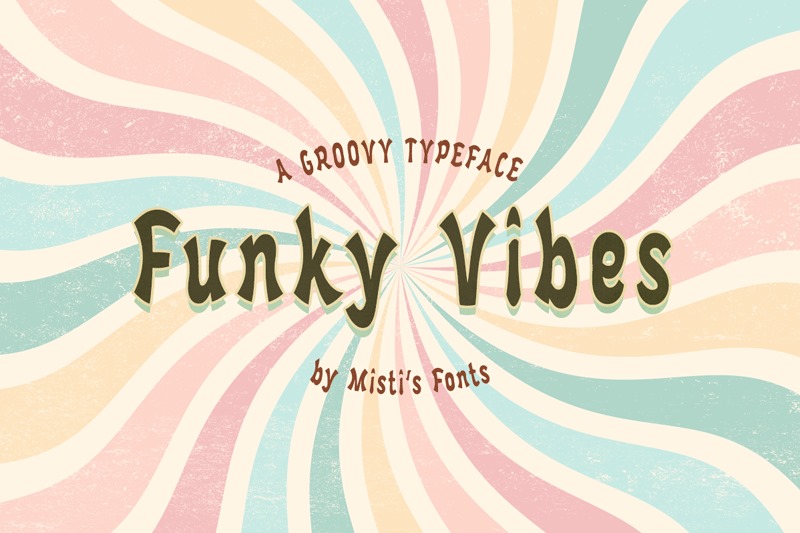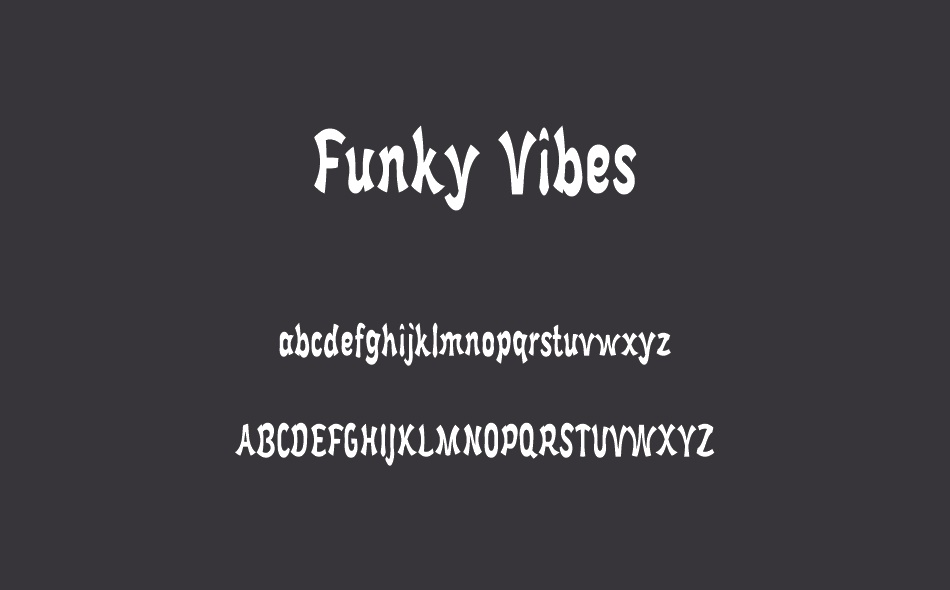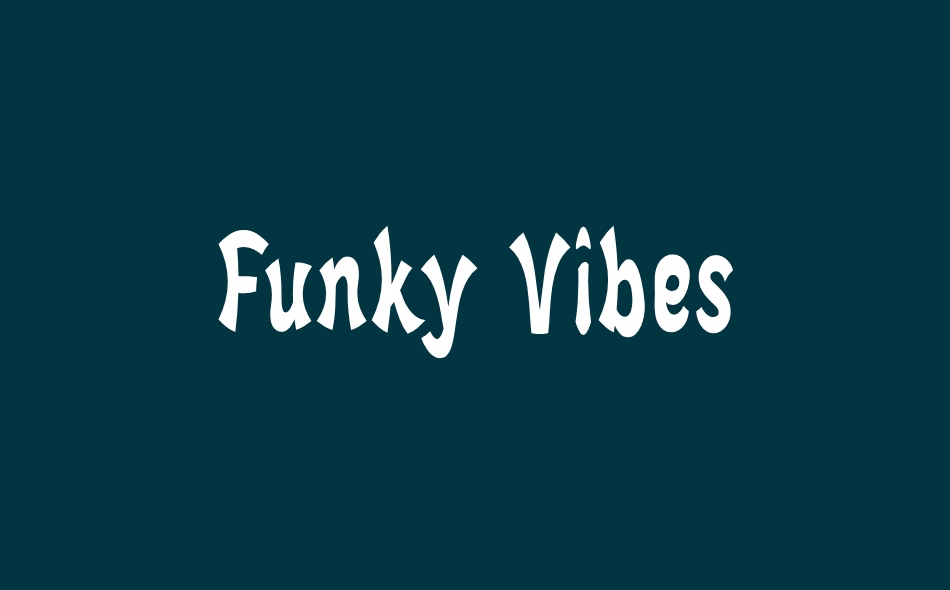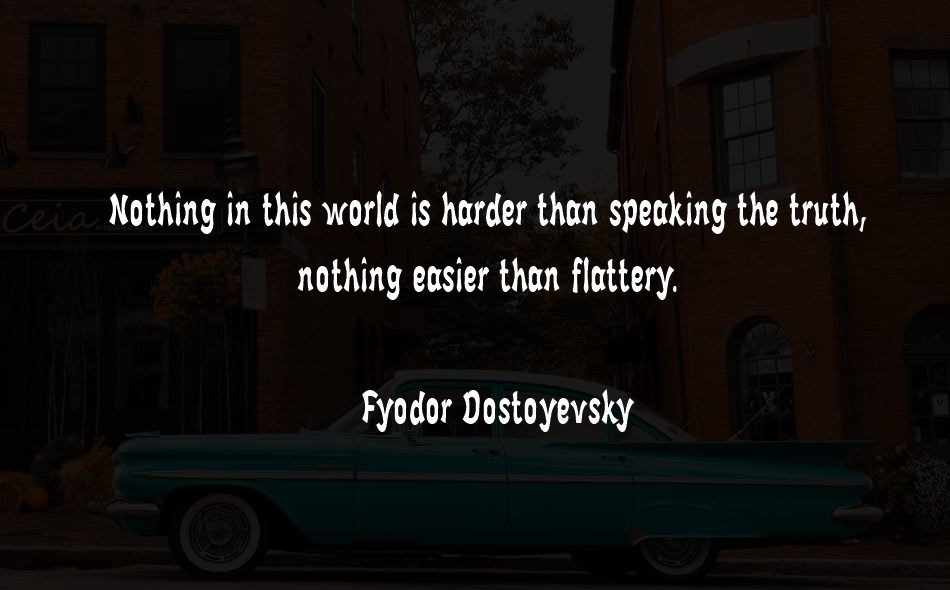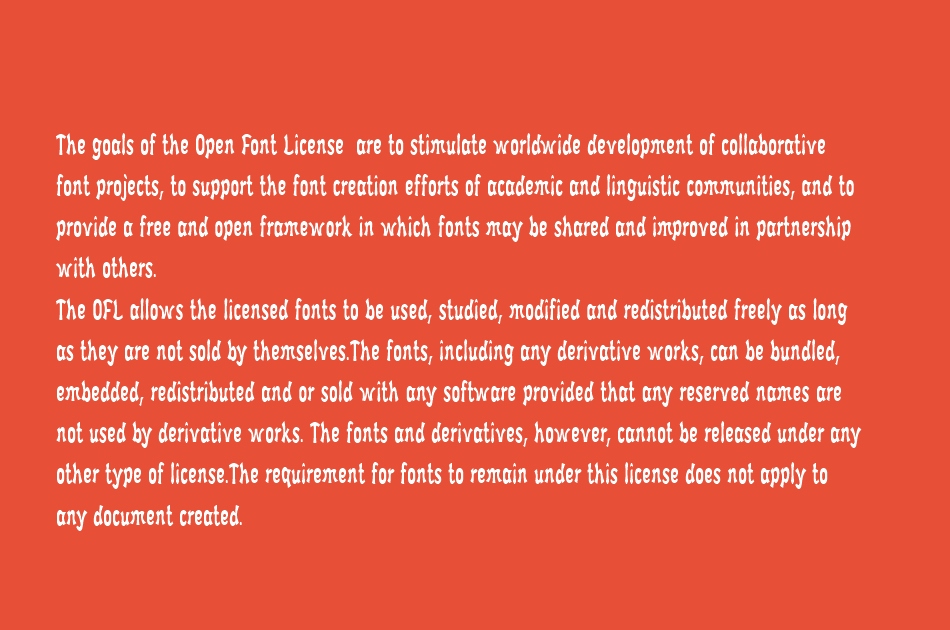
Funky Vibes font
Funky Vibes is a cool and vintage styled display font. Whether you use it for cartoon related designs, children games or just any creation that requires a lovely touch, this font will be an amazing choice.